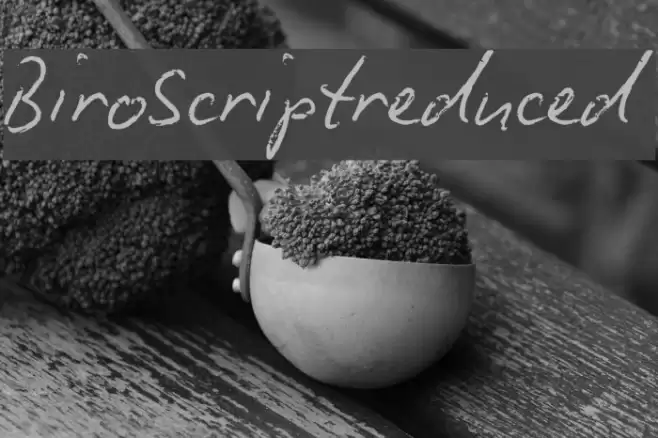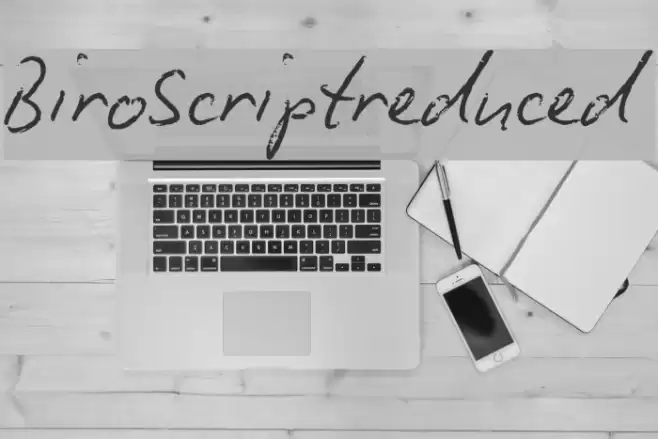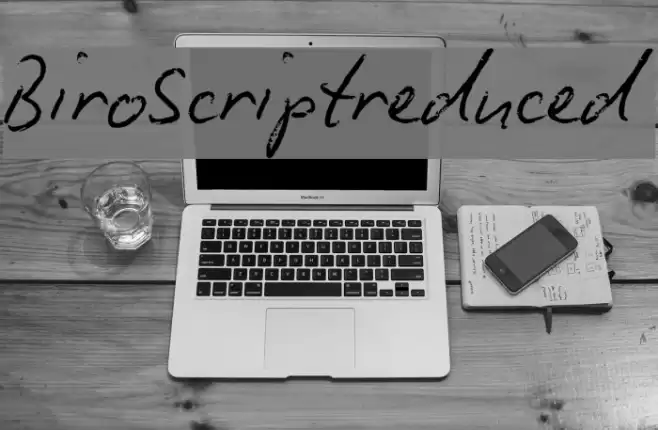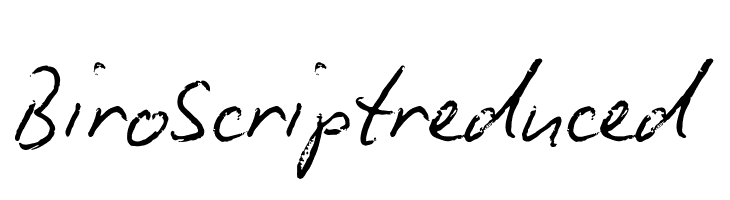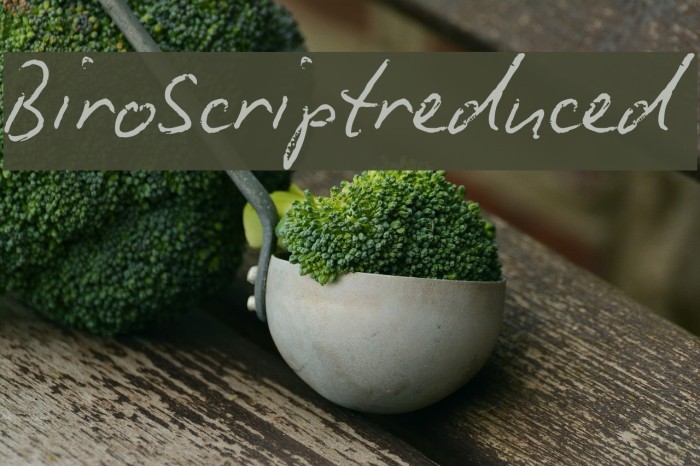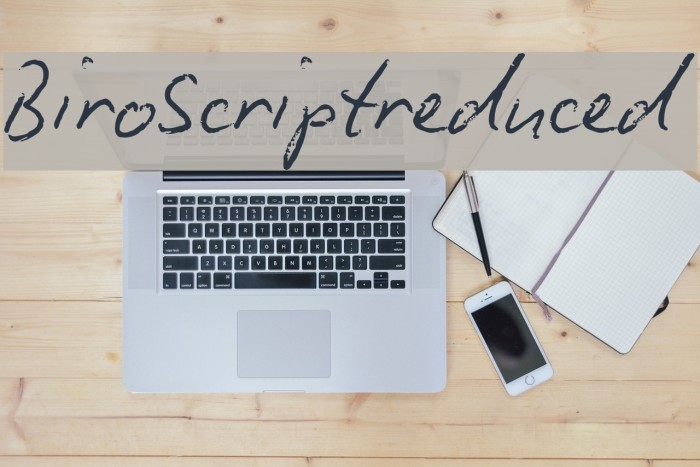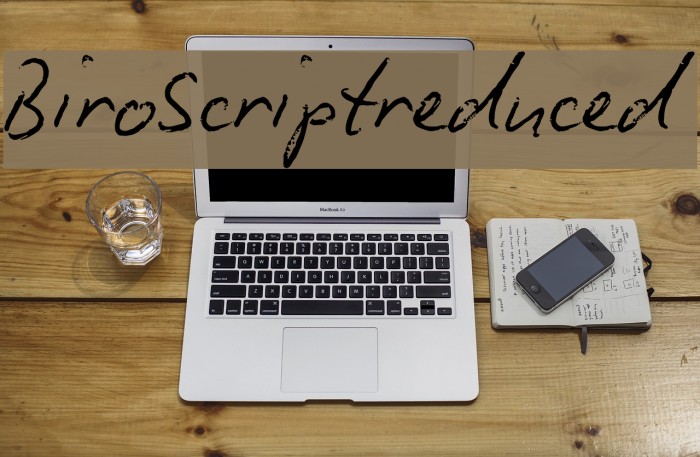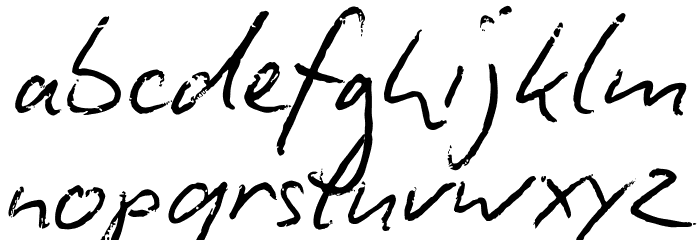
BiroScriptreduced Font
BiroScriptreduced Description
This font exudes a dynamic and expressive handwritten style, reminiscent of quick penmanship with a slightly rough texture. The letters are fluid and connected, capturing the essence of natural handwriting with an artistic flair. The strokes vary in thickness, adding a sense of movement and energy to the text. The uppercase letters maintain a consistent height, while the lowercase letters are slightly smaller, enhancing readability. The overall appearance is casual yet sophisticated, making it suitable for creative and informal projects.
Expressive handwritten font with dynamic strokes and a natural flow from Uncategorized fonts.
- Proposed Projects: Ideal for personal notes, creative invitations, artistic branding, and expressive posters.
- Overall Style: Casual, Artistic
- Use Case: Logos, Invitations, Posters